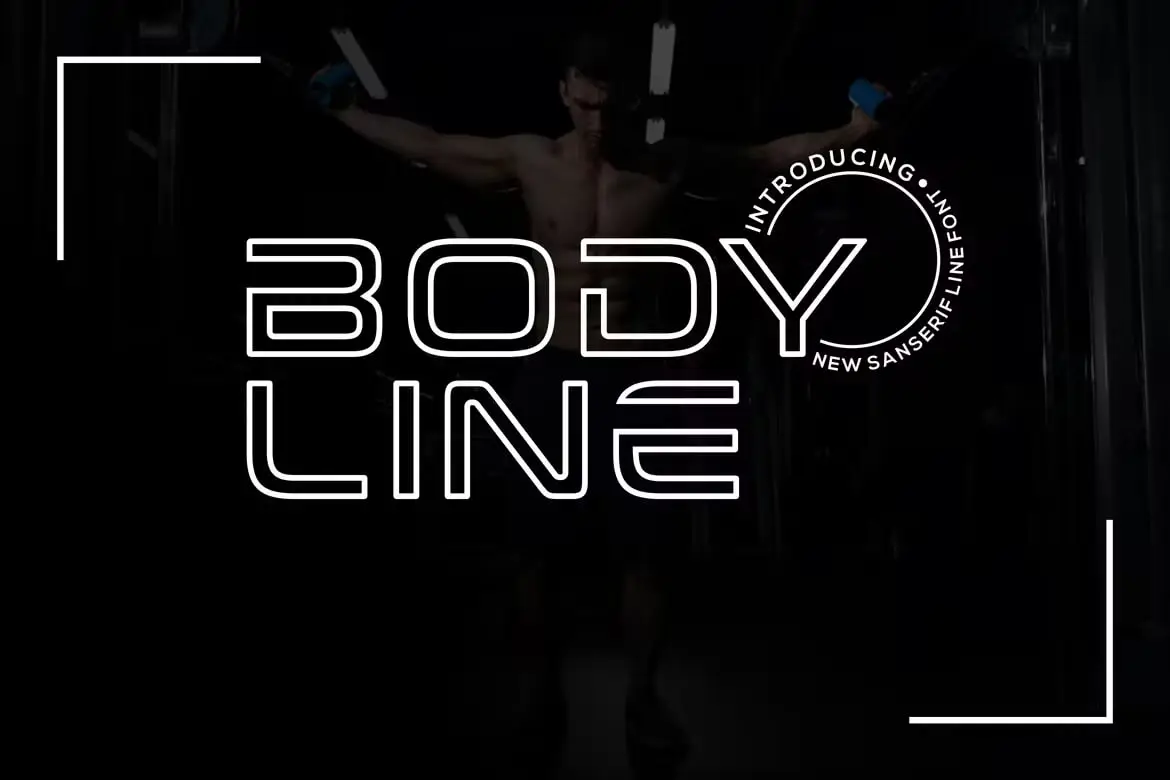
Bodyline Font
The Bodyline Font is a modern typeface that combines elegance with readability, making it perfect for a variety of design projects. With its clean lines and contemporary style, this font is suitable for branding, logos, websites, and print materials.
• Available in multiple weights for versatile applications
• Stylish and legible, ideal for both headlines and body text
• Includes uppercase and lowercase letters, numbers, and special characters
• Utilize Bodyline for eye-catching logos and branding materials
• Incorporate it into web design for a modern aesthetic
• Use in print projects like brochures and posters for a professional look